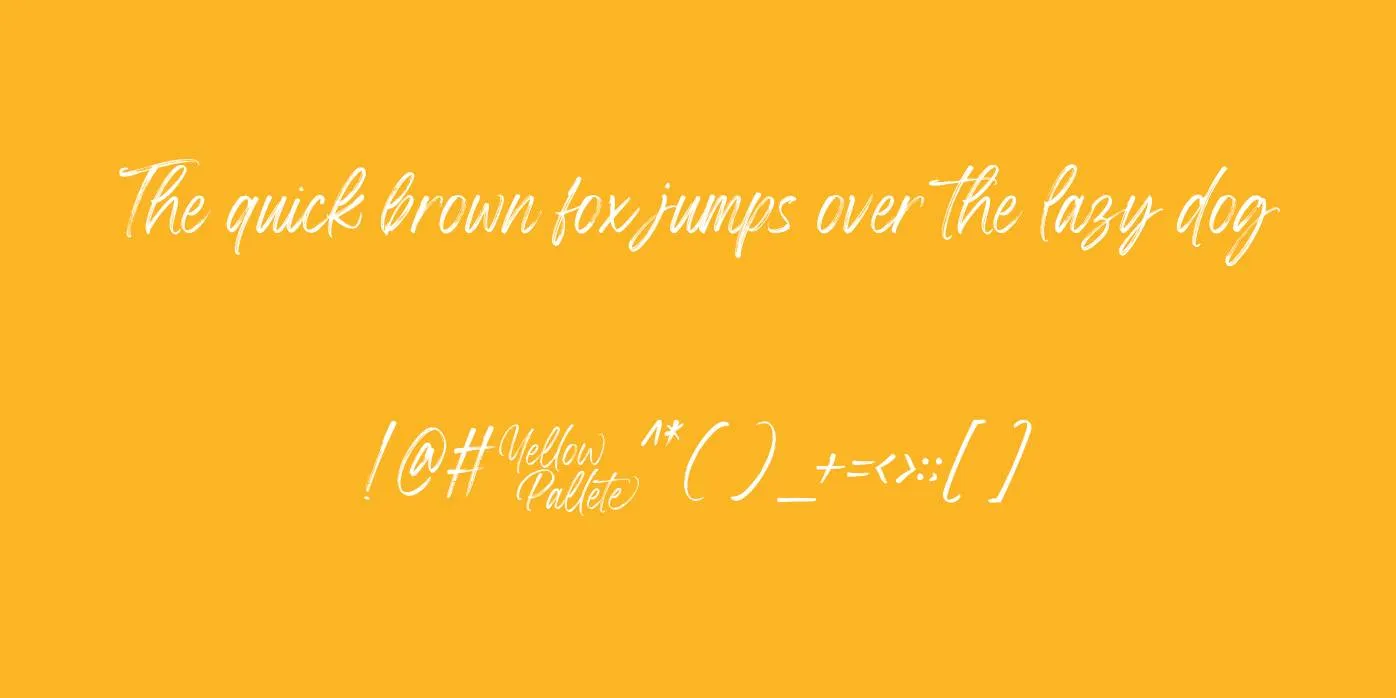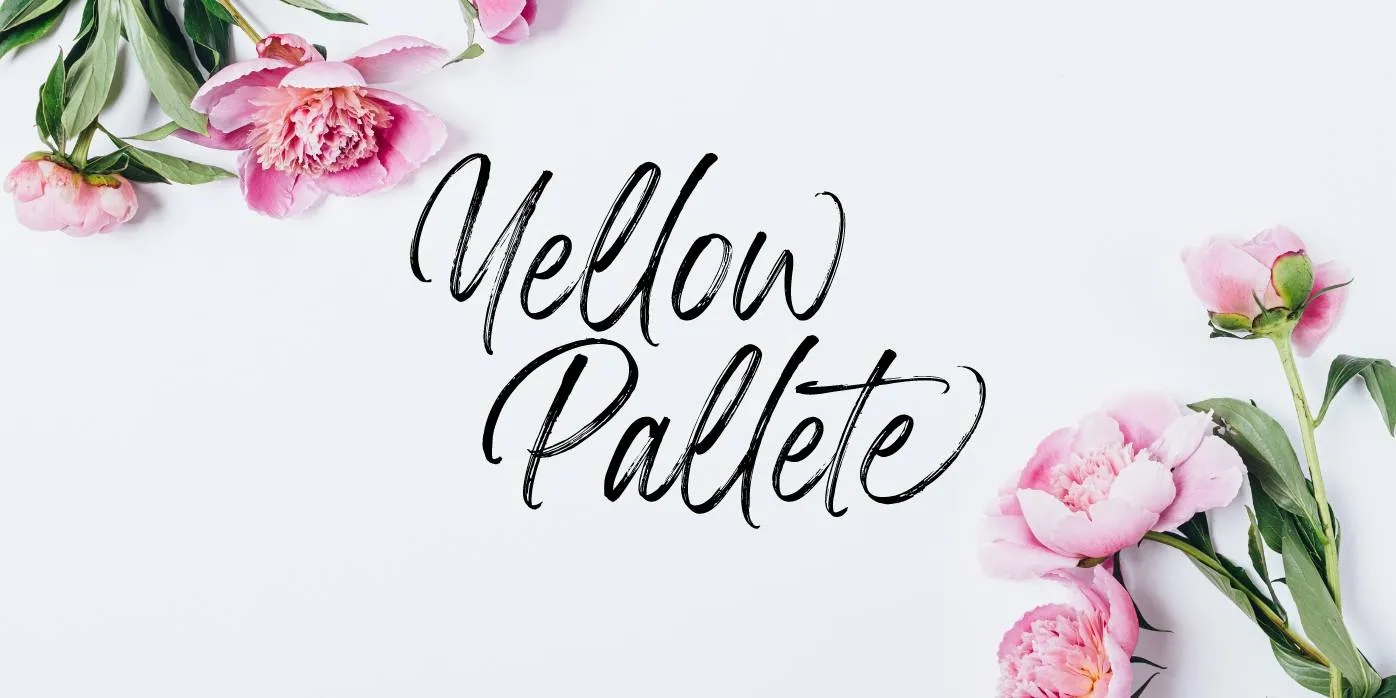
Yellow Palette Font
Here we discuss detailed information about Yellow Palette Font. It was designed by Donis Miftahudin and manufactured by Din Studio. This stunning typeface is a handwritten font with gorgeous features. It contains so many characters 433 glyphs and 1000 units per Em.
It belongs to the script family class. The weight of the font is Semi-Light and its width is Semi-condensed. An online generator tool supports it to make simple text into a stylish look without downloading it. You can create or edit your project online.
The patterned nature of it is Italic. This stunning typeface can be paired with other fonts to more attractive look like black jackel font. It supports file formats TTF (True Type Font) and OTF Open Type font). To use this font you can download it on different devices such as PC, MAC, IOS, and Andriod.
Usage Different projects can be made using this font. It has so many features like symbols, numbers, capital letters, small letters, special characters, and punctuations. It is a brush-type font with fun characters. For making amazing presentations this font can be used.
With a beautiful look quotes of any type can also be written using this font. Many attractive headlines can be made with this font. For branding purposes, it is also a good choice. Wedding invitations or other event invitations can be made with this font.
Is Yellow Palette a good font for print? For body text, it is not recommended as a good font but for other projects like making headlines and titles, it is a suitable font. Can I use the Yellow Palette Font in PowerPoint? It is considered a Universal font and can be downloaded from this website.